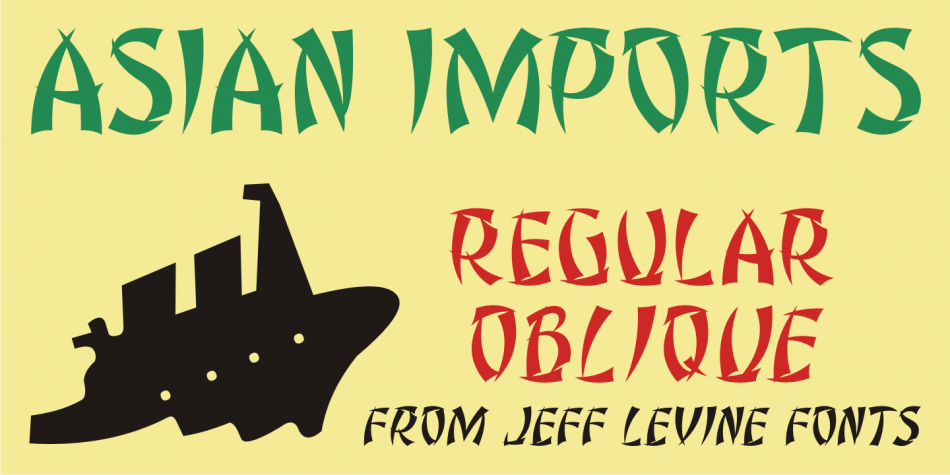
Asian Imports JNL is a foreign font family. This typeface has two styles and was published by Jeff Levine Fonts.
Sheet music for the 1939 Hoagy Carmichael composition “Hong Kong Blues” features the Far East-influenced hand lettered title that was the basis for Asian Imports JNL; available in both regular and oblique versions.
Carmichael performed the song in the 1944 Warner Brothers film “To Have and Have Not’, (which first paired Humphrey Bogart and Lauren Bacall).
The sheet music was a reissue to capitalize on the song’s use in the film.